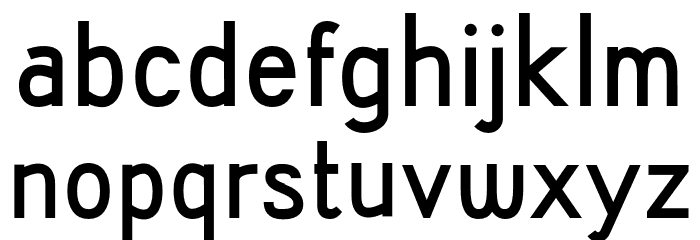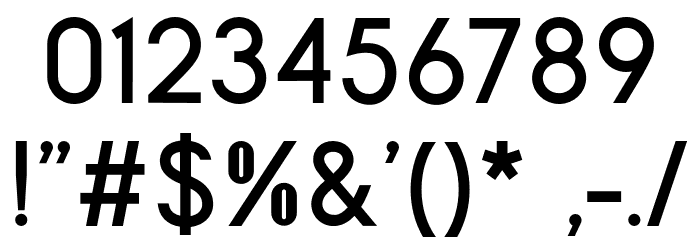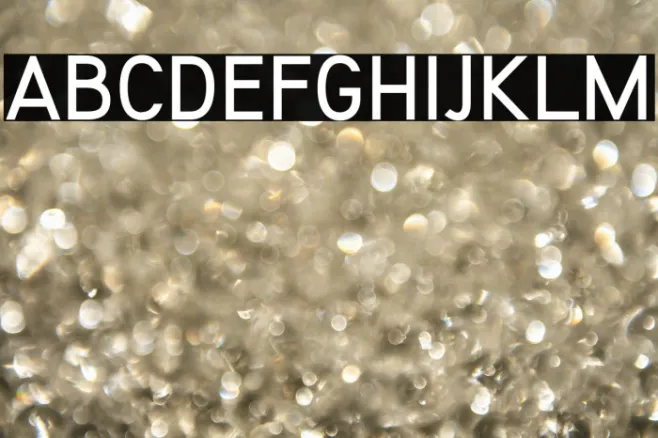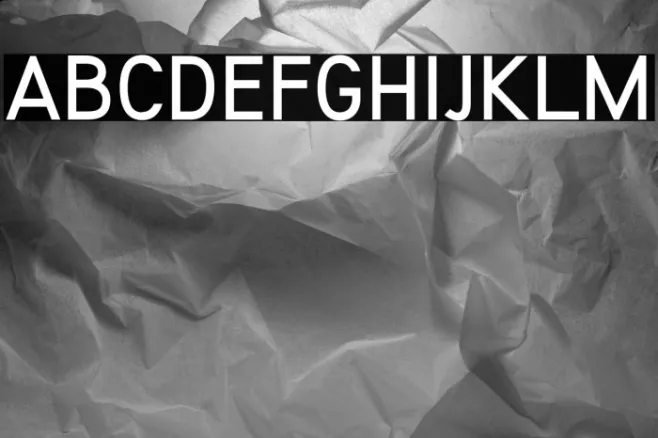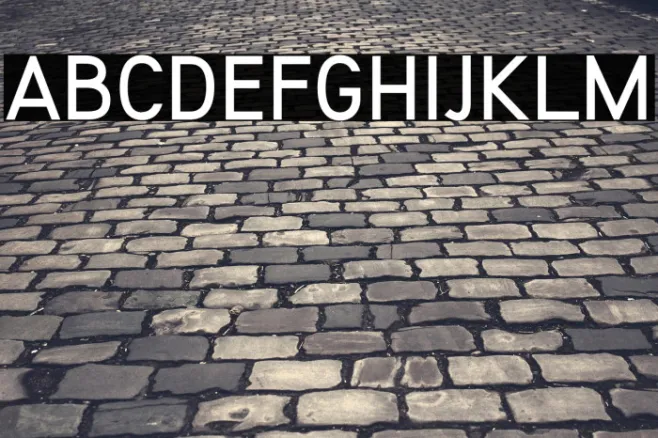
KalyantDemoBold Font
This font is a bold, sans-serif typeface characterized by its clean and modern appearance. The letters are uniform in width, providing a balanced and harmonious look. The uppercase and lowercase letters are well-proportioned, with a slight geometric influence that adds to its contemporary feel. The numbers are clear and easy to read, making them suitable for various applications. Special characters are included, maintaining the same bold and straightforward style. This font is versatile and can be used in a wide range of design projects.
A bold, modern sans-serif font with a clean and geometric style.
- Font: KalyantDemoBold
- Proposed Projects: Ideal for branding, advertising, headlines, and digital content where a modern and bold statement is needed.
- Category: Sans-Serif
- Use Case: Headlines, Logos, Branding